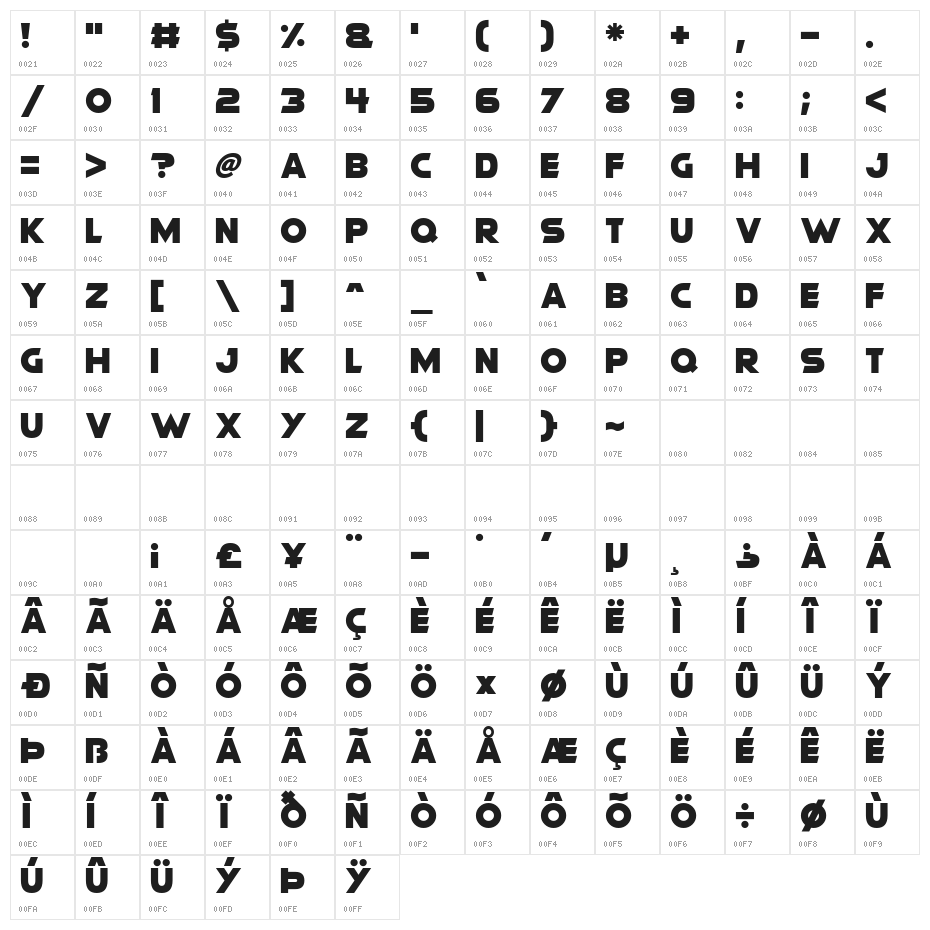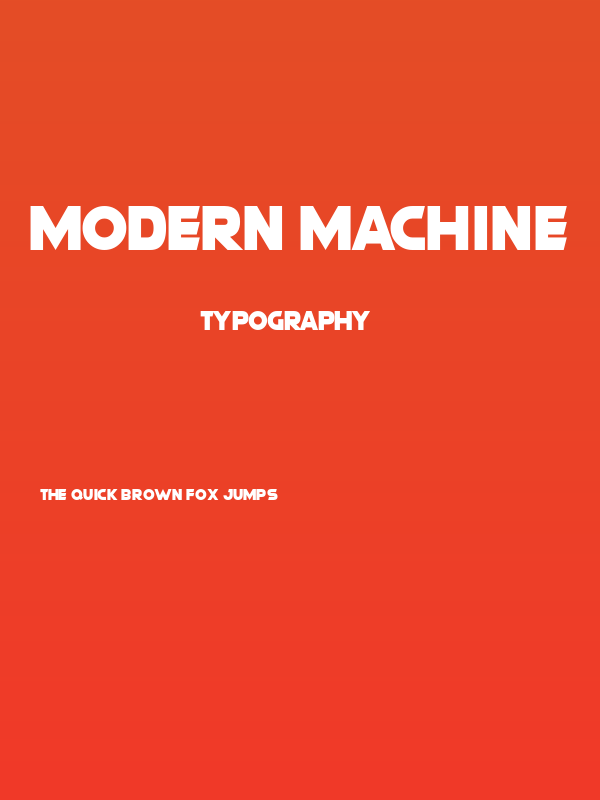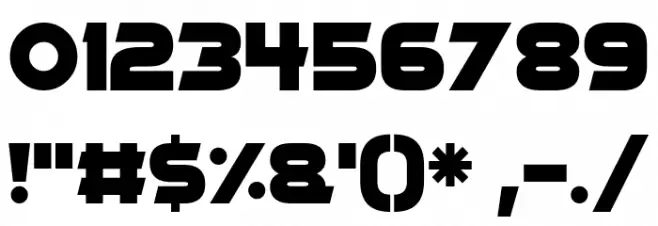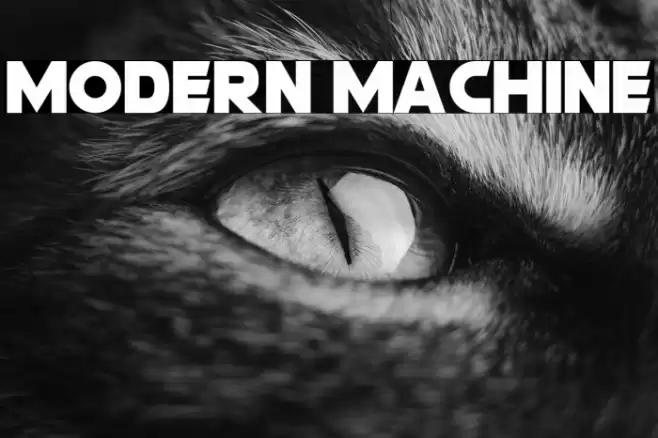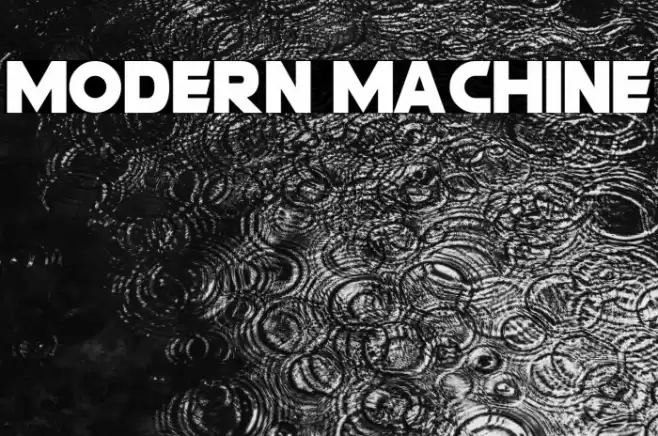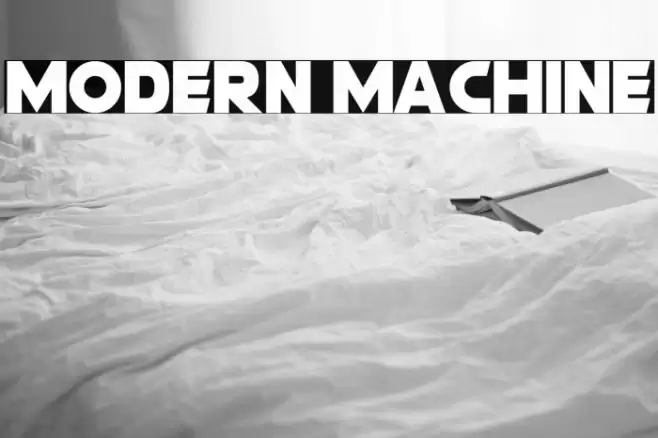
Modern Machine Font
Modern Machine Description
This font features bold, geometric letterforms with a strong, industrial aesthetic. The characters are constructed with thick, uniform strokes that give a sense of solidity and strength. The design is modern and clean, with a slight futuristic edge, making it ideal for projects that require a contemporary look. The uppercase letters are particularly striking, with sharp angles and a blocky appearance. The numerals and special characters maintain the same boldness and clarity, ensuring consistency across all text elements.
| Proposed Projects | Ideal for branding, headlines, posters, and any design requiring a strong, modern impact. |